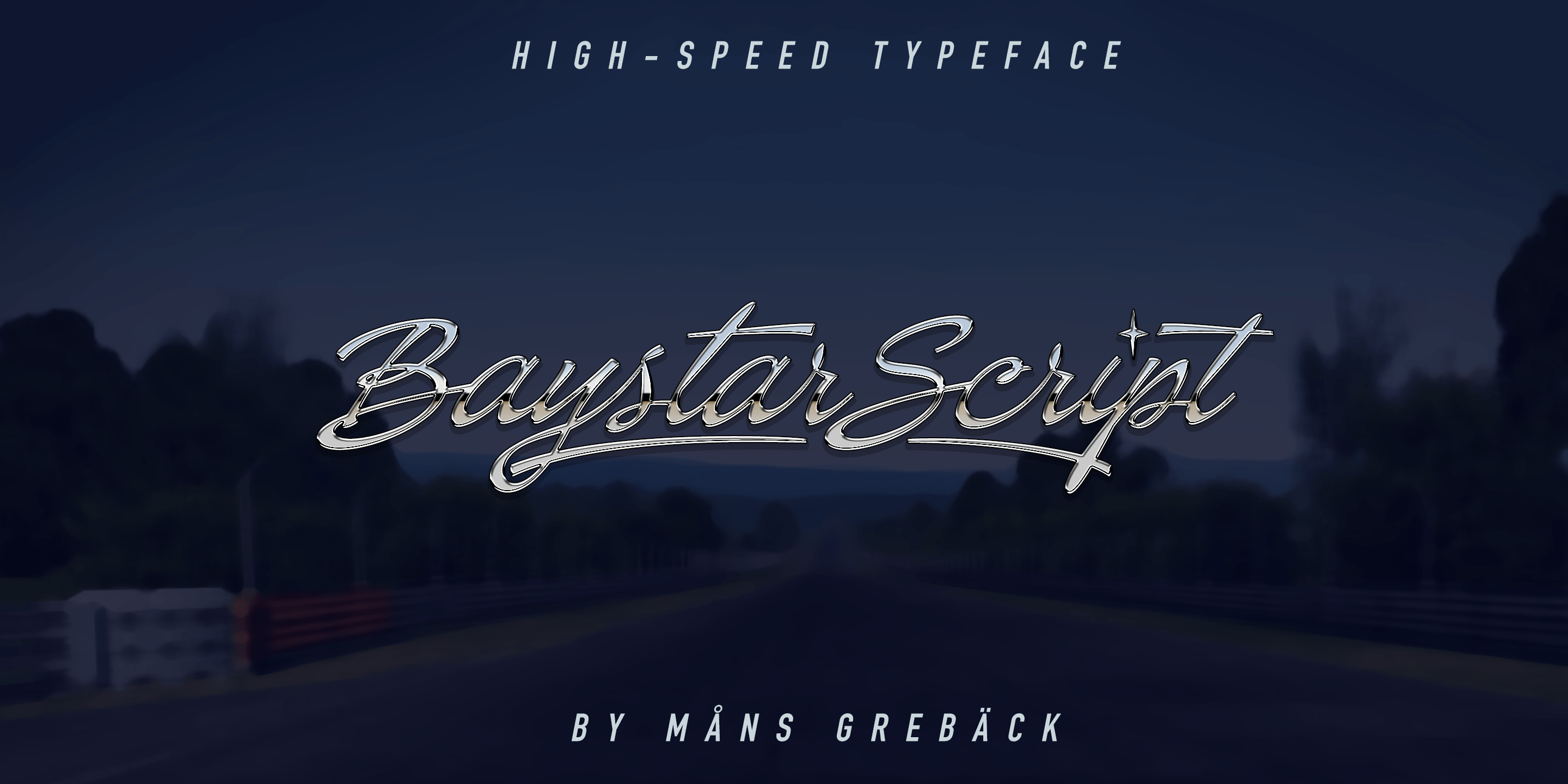
Baystar Script Font is perfect for coastal resort branding, nautical wedding invitations, seafood restaurant logos, marina signage, beachside cafe menus, luxury yacht charters, ocean-themed greeting cards, and maritime lifestyle advertising campaigns.
Baystar Script Font is exciting because it beautifully captures the flowing rhythm of ocean waves and coastal breezes with its graceful, hand-lettered script that evokes memories of seaside getaways and maritime adventures, embodying the tranquil elegance of waterfront living and the timeless romance of nautical culture, making it ideal for projects requiring coastal sophistication and oceanic charm.
The Baystar Script Font family includes multiple weights and styles such as Regular Script, Bold Script, Light Script, Condensed Script, and Decorative versions, providing designers with comprehensive options for creating elegant typographic systems that maintain the coastal aesthetic across various maritime and hospitality applications.
Baystar Script Font Free Download offers designers access to an exquisitely crafted typeface that embodies the serene beauty and romantic allure of coastal living. This exceptional font captures the essence of gentle sea breezes and the peaceful rhythm of tidal movements, creating a powerful tool for brands seeking to communicate relaxation, luxury, and the sophisticated charm of waterfront destinations.
The font's flowing letterforms feature organic curves and nautical-inspired flourishes that mirror the natural movements found in ocean currents and coastal landscapes. Each character has been meticulously crafted to work harmoniously within compositions, ensuring that Baystar Script Font delivers optimal elegance while maintaining readability across various hospitality and lifestyle applications.
Professional designers working with coastal resorts and maritime businesses appreciate this font's ability to instantly communicate seaside sophistication and nautical heritage. The typeface excels in applications where coastal elegance meets luxury hospitality, from waterfront hotel branding to yacht club identity systems, from seaside wedding planning to marine tourism promotions.
The comprehensive character set includes nautical symbols and coastal-inspired ornaments, making it particularly suitable for maritime projects while preserving its distinctive oceanic character. Whether used for elegant invitations, coastal signage, or luxury hospitality materials, this font delivers consistent visual appeal that enhances brand recognition and emotional connection with coastal lifestyle audiences.
Creative professionals in the hospitality and tourism industries have embraced Baystar Script Font for its unique ability to evoke the peaceful luxury of coastal destinations and maritime adventures. Its versatility allows it to adapt seamlessly to both traditional nautical themes and contemporary coastal aesthetics while maintaining its sophisticated oceanic spirit.
This remarkable typeface has become an essential resource for designers who understand that certain locations and lifestyles require typography that captures their unique atmosphere and emotional appeal. Its ability to instantly communicate coastal tranquility and maritime elegance makes it invaluable for brands operating in competitive hospitality and lifestyle markets.